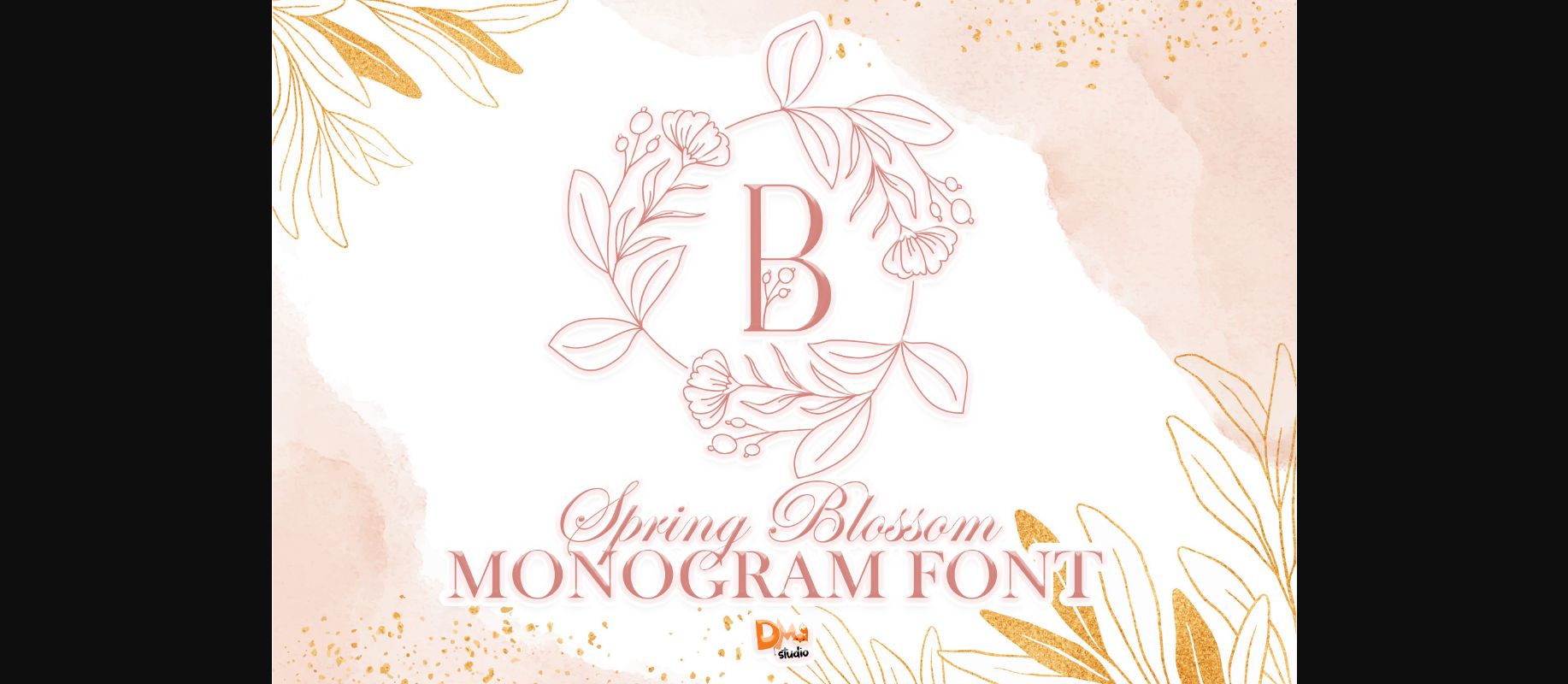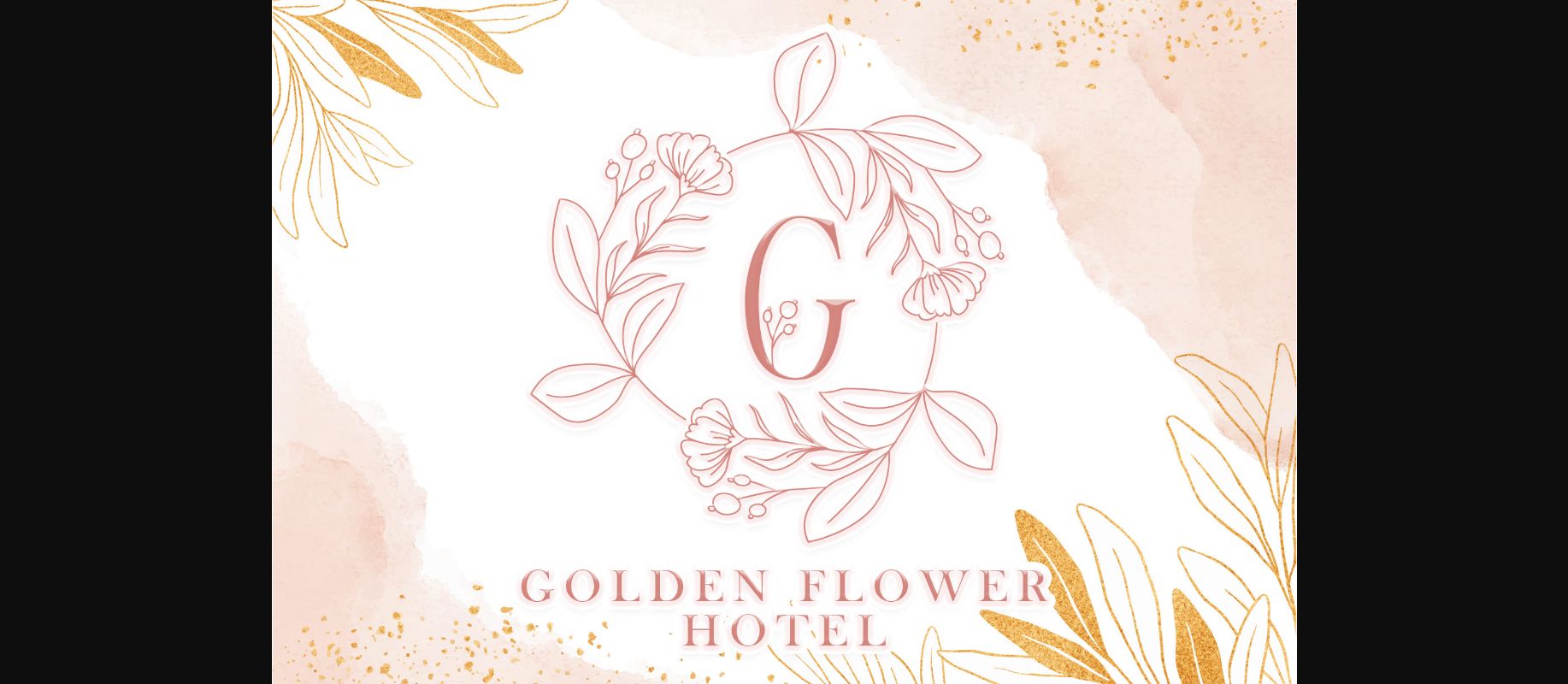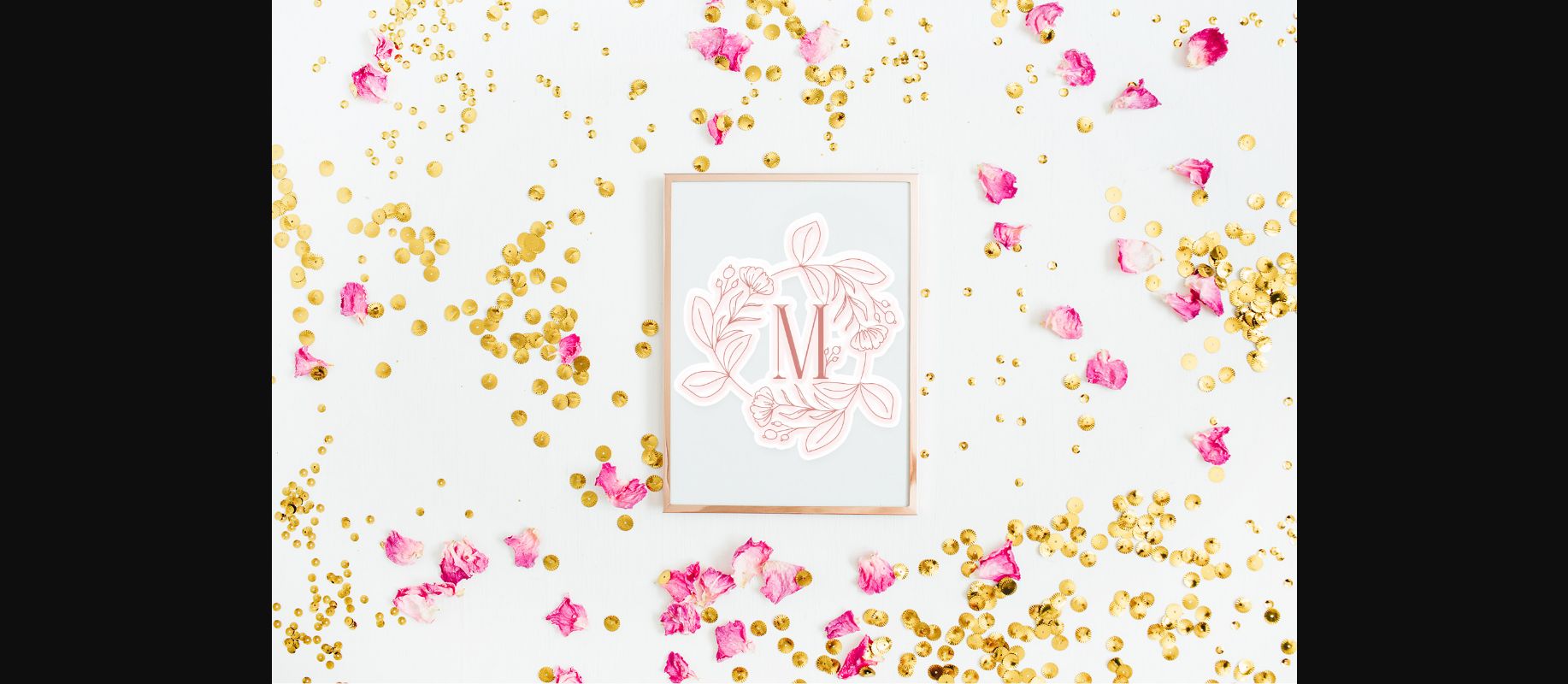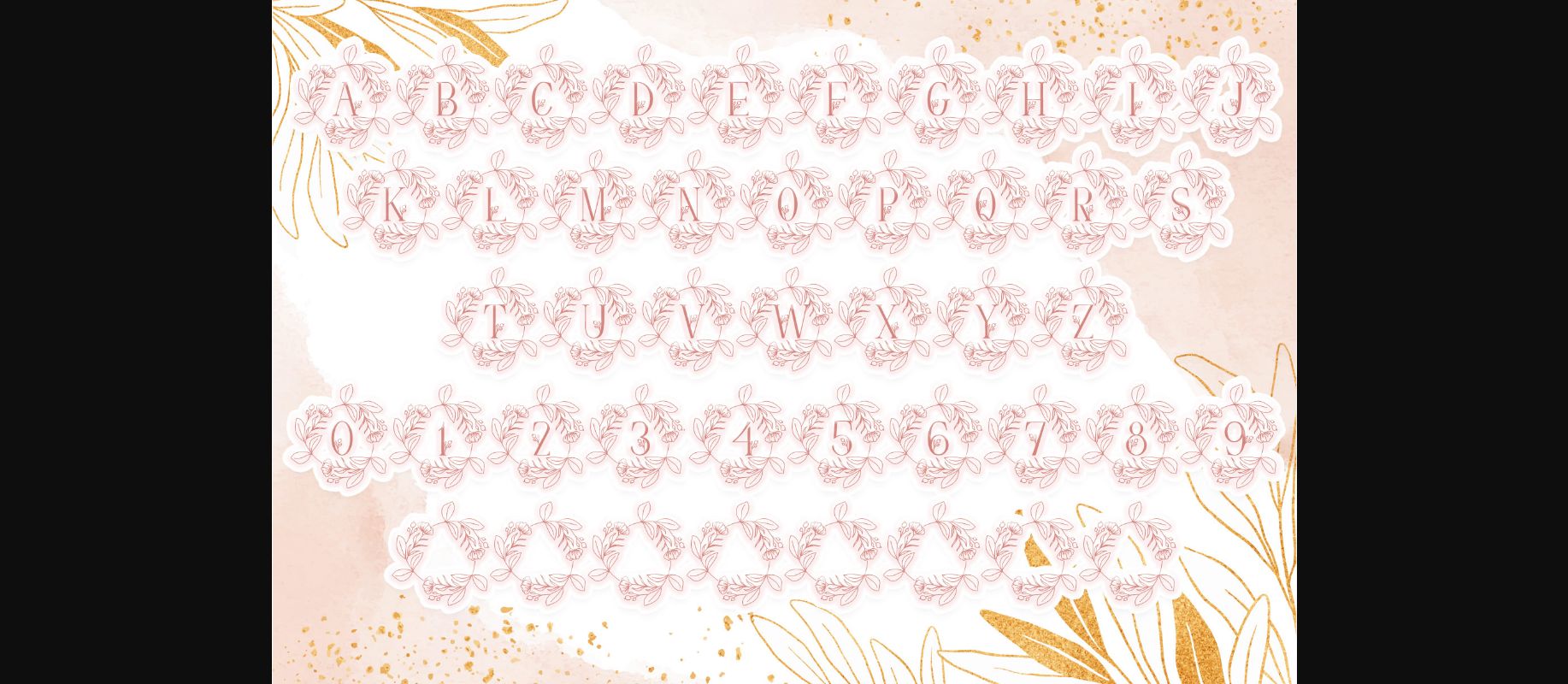
About Spring Blossom Font
Spring blossom is a sweet decorative font that will definitely add a fresh, young vibe to your creations. Fall in love with its romantic touch, and create gorgeous designs for any special occasion!